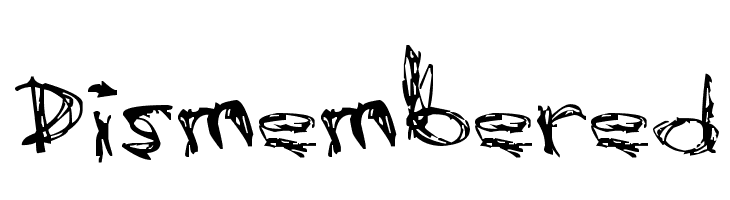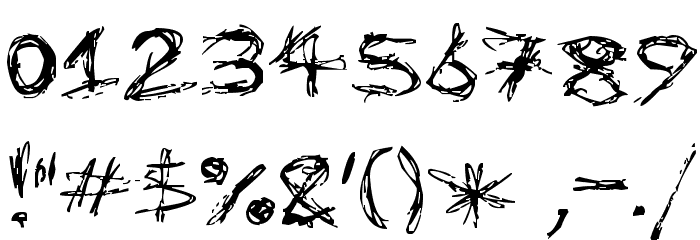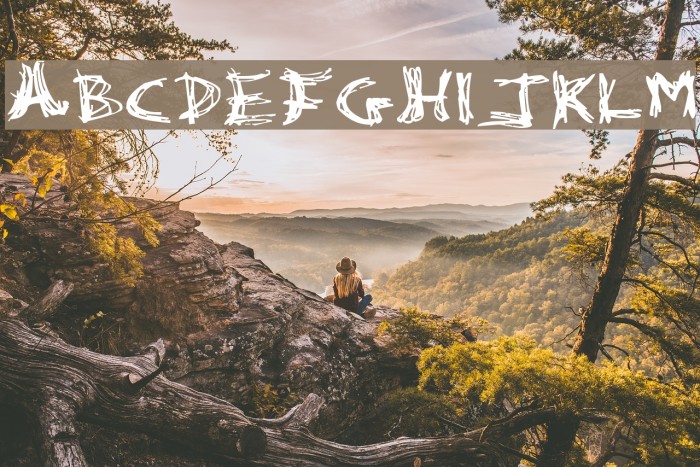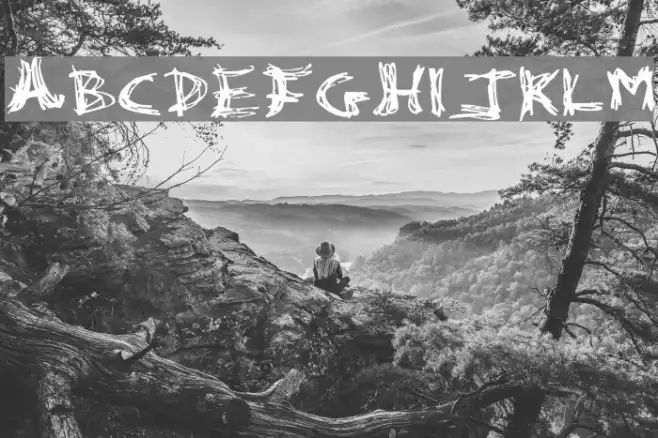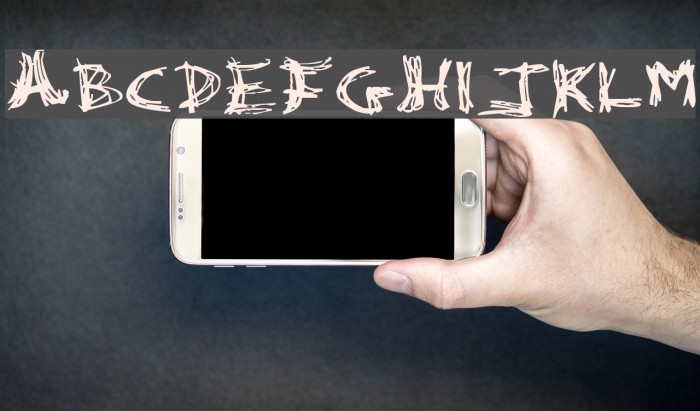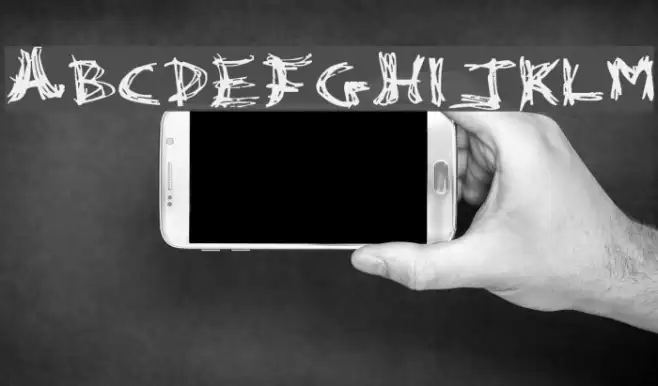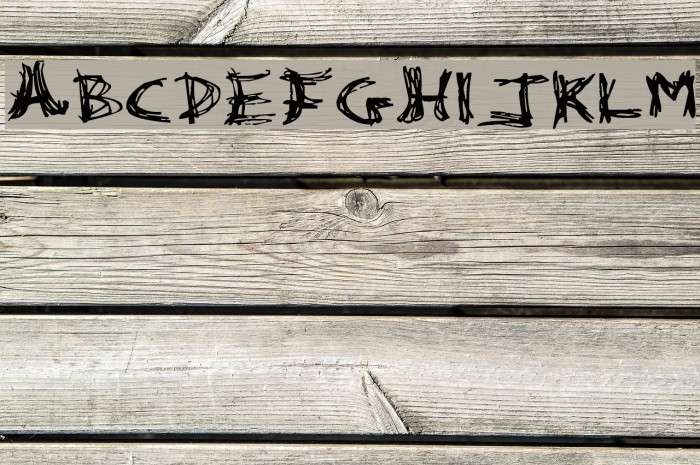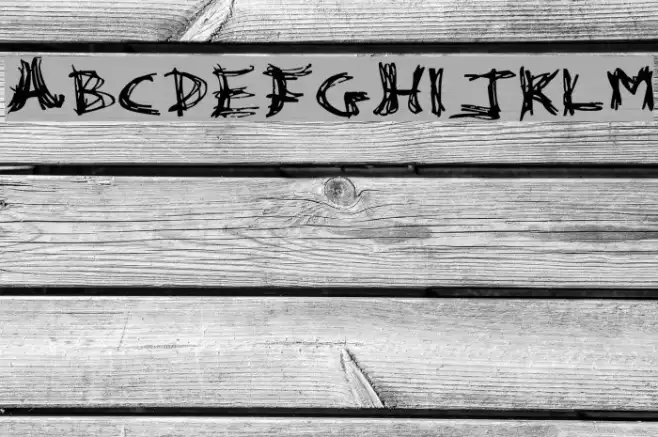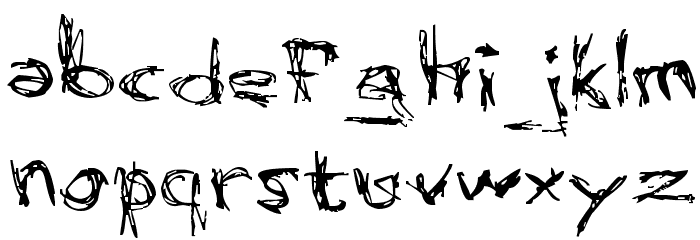
Dismembered Font
This font exudes a chaotic and distressed aesthetic, characterized by its jagged, uneven strokes and rough edges. Each letter appears as if it has been hastily scratched or carved, giving it a raw, edgy appearance. The uppercase and lowercase letters maintain a consistent style, with exaggerated angles and irregular line thicknesses that create a sense of movement and urgency. Numbers and special characters follow the same design principles, enhancing the overall disordered look. This font is ideal for projects that require a grunge or horror theme, as it effectively conveys a sense of unease and intensity.
A chaotic, distressed font with jagged strokes and a grunge aesthetic.
• Proposed Projects: Perfect for horror-themed posters, album covers, or edgy graphic designs.
• Category: Decorative/Display
• Overall Style: Grunge, Distressed
• Use Case: Headlines, Posters, Album covers